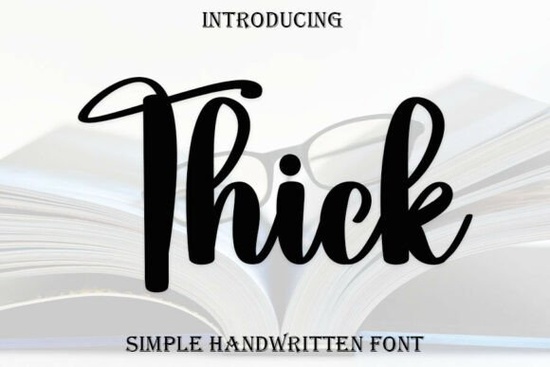
Finding the right handwritten typeface can be tricky when you want something that feels both elegant and approachable. The Thick font solves this by offering a sweet, cursive style that remains highly readable. Whether you are designing wedding invitations or creating a new logo for your small business, this gentle typeface adds a joyful and romantic touch to your work. It strikes a great balance between fancy and casual, making it a reliable choice for everyday creative projects.
How does a cursive font balance elegance and casual style?
Many script typefaces lean too far into formal calligraphy, making them hard to read in smaller sizes. This specific design avoids that trap by keeping the letterforms gentle and flowing. When you are browsing the script fonts category, you will notice that versatility is key. A good handwritten style should look beautiful on a large canvas but still hold its shape when scaled down. The soft curves and natural connections in this typeface give it a warm, personal feel without looking messy. If you usually prefer cleaner, uniform lines, you might also explore a monoline handwriting font to compare the stroke weights and see which fits your layout better.
What projects work best with romantic handwritten typefaces?
Because of its gentle and joyful vibe, this typeface is incredibly versatile for personal and commercial work. It naturally draws the eye, making it perfect for focal points in your layouts. Here are a few ways crafters and designers use it:
- Wedding suites: Use it for the couple's names on invitations, menu cards, or seating charts.
- Greeting cards: Add a personal touch to handmade paper crafts, holiday cards, or thank you notes.
- Fashion lookbooks: Apply it to headers and pull quotes to give your editorial layouts a soft, stylish edge.
For bridal suites, pairing it with something like the Violyn and Thivoria wedding typefaces can give you a beautiful contrast between a flowing script and a structured serif. If you are working on a more relaxed, summer-themed project, the Vacation Sunday font offers a similarly breezy and casual feel.
Can small businesses use cursive scripts for everyday marketing?
Absolutely. While some businesses rely strictly on bold sans-serifs, adding a touch of handwriting can make your brand feel more human and approachable. It works wonderfully for marketing promotions, social media graphics, and packaging design. When you want your design to look fancy but still casual, a well-chosen script does the heavy lifting for you. When building a cohesive brand identity, you might want to test this alongside a RiseMotion signature font to see which one better matches your company's voice. You can always download the full Thick script font package to check all the included glyphs, swashes, and ligatures before finalizing your logo or brand guidelines.
How do I make sure my handwritten text stays readable?
The biggest mistake designers make with cursive styles is using them for too much text. To keep your projects looking professional and easy to read, follow these practical guidelines:
- Limit it to short phrases: Use the script for headings, names, or single sentences. Pair it with a clean sans-serif or serif for body text.
- Mind your letter spacing: If the letters feel too cramped, slightly increase the tracking. Just be careful not to break the natural connections between characters.
- Watch your background: Intricate scripts can get lost on busy or highly textured backgrounds. Stick to solid colors or very subtle textures to let the letterforms stand out.
- Check the x-height: Ensure the lowercase letters are tall enough to be read clearly, especially if your design will be viewed on mobile screens.
What should I check before finalizing my cursive design?
Before you send your final files to the printer or hit publish online, run through this quick check:
- Is the script used only for headings or short emphasis?
- Did you pair it with a highly readable secondary font?
- Are the swashes and alternate characters used sparingly so they do not clutter the design?
- Have you checked the legibility at the actual size it will be printed or displayed?
Keeping these steps in mind will ensure your handwritten elements look beautiful and professional every time you use them.